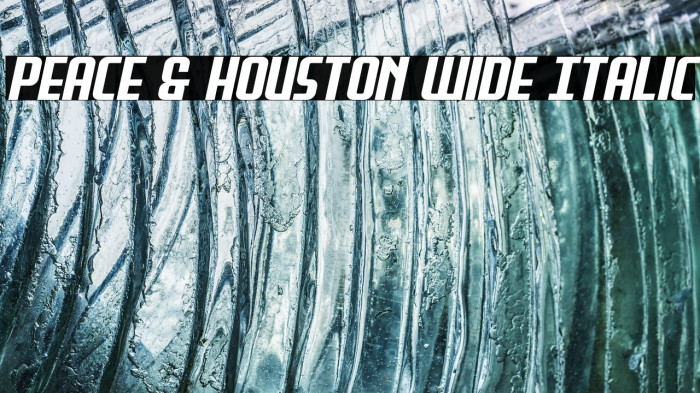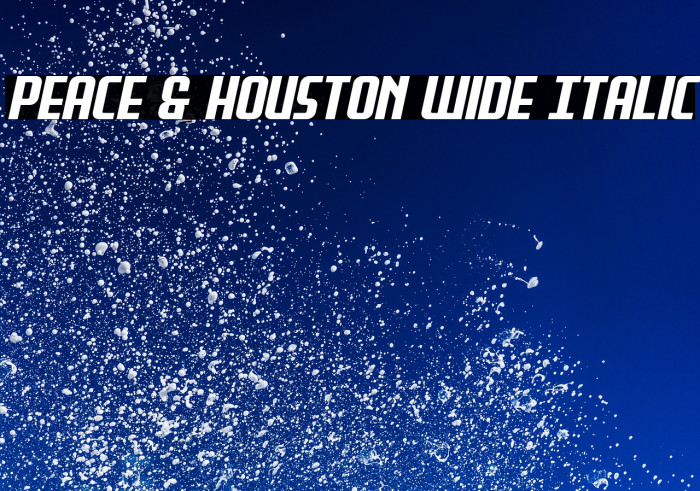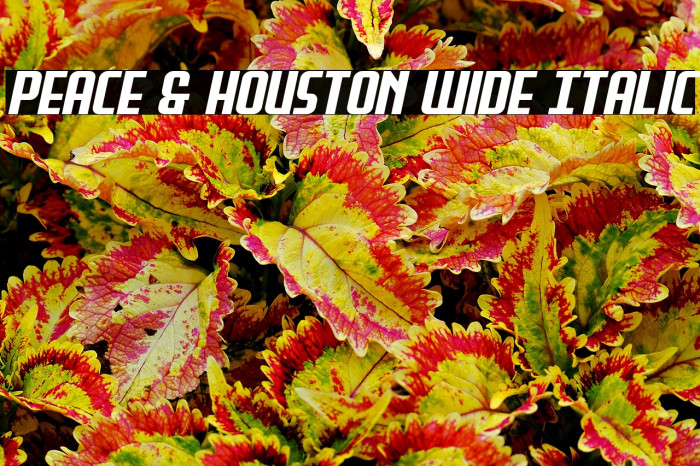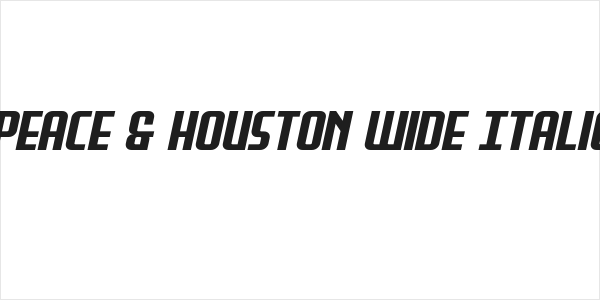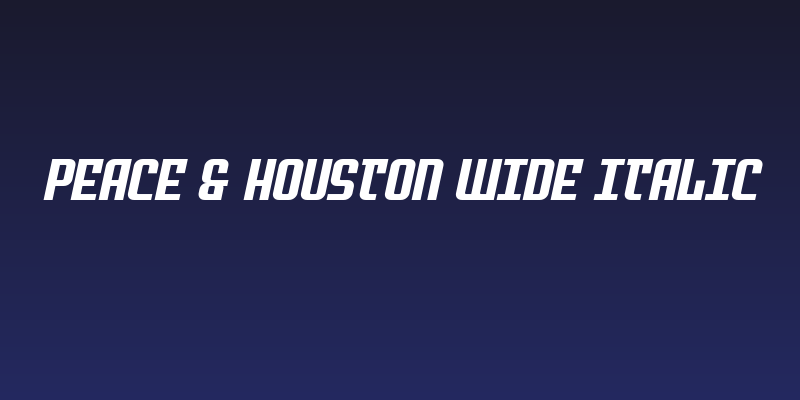
Peace & Houston Wide Italic Font
Peace & Houston Wide Italic Description
This font exhibits a bold and dynamic style with a wide, italicized form. The characters are designed with a strong geometric influence, featuring sharp angles and clean lines that convey a sense of speed and modernity. The uppercase letters are particularly striking, with a consistent slant that adds to the overall sense of motion. The numerals and special characters maintain this aesthetic, ensuring a cohesive look across all elements. The font's wide stance and italic nature make it ideal for attention-grabbing headlines or branding that requires a contemporary and assertive appearance.